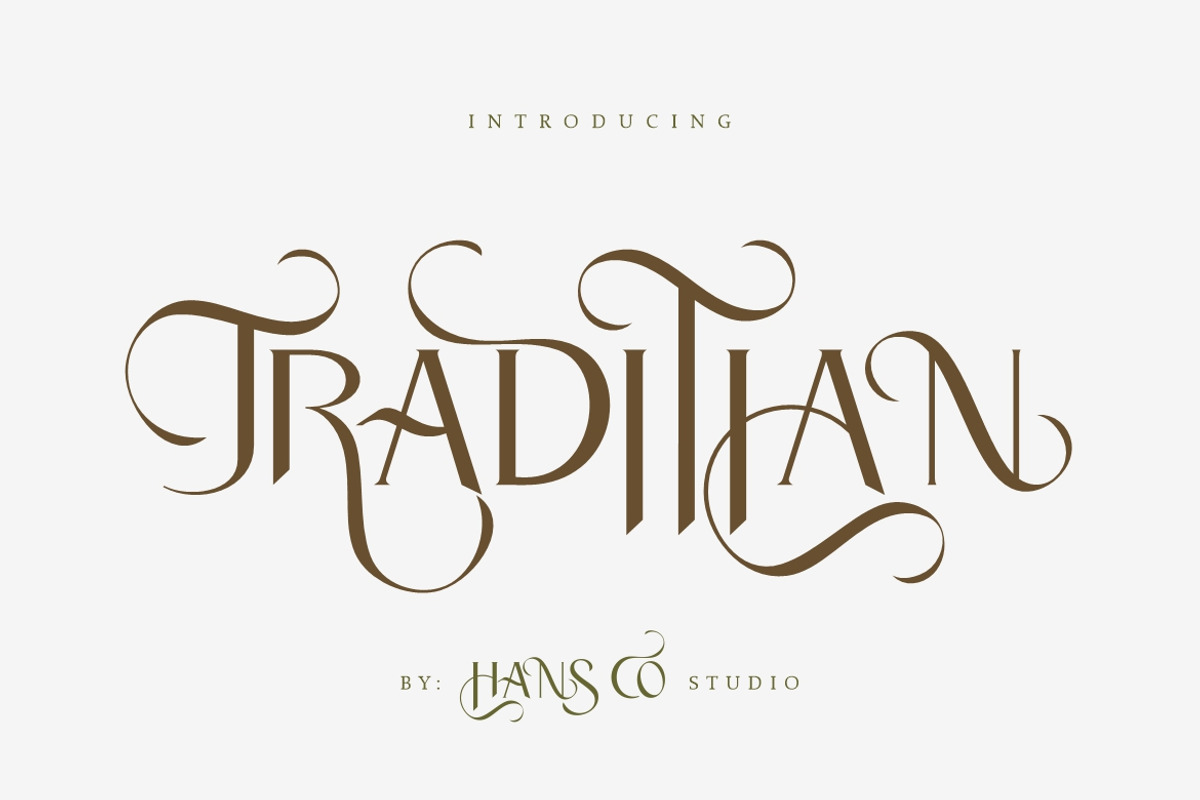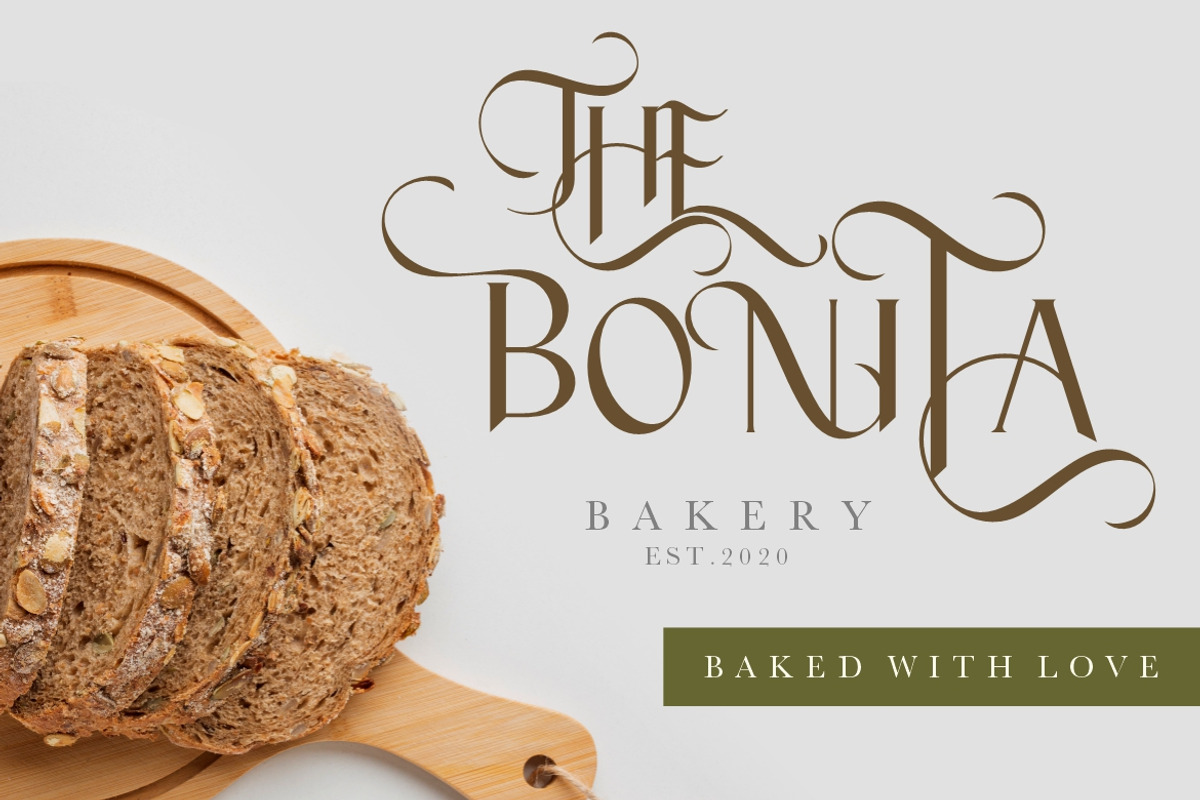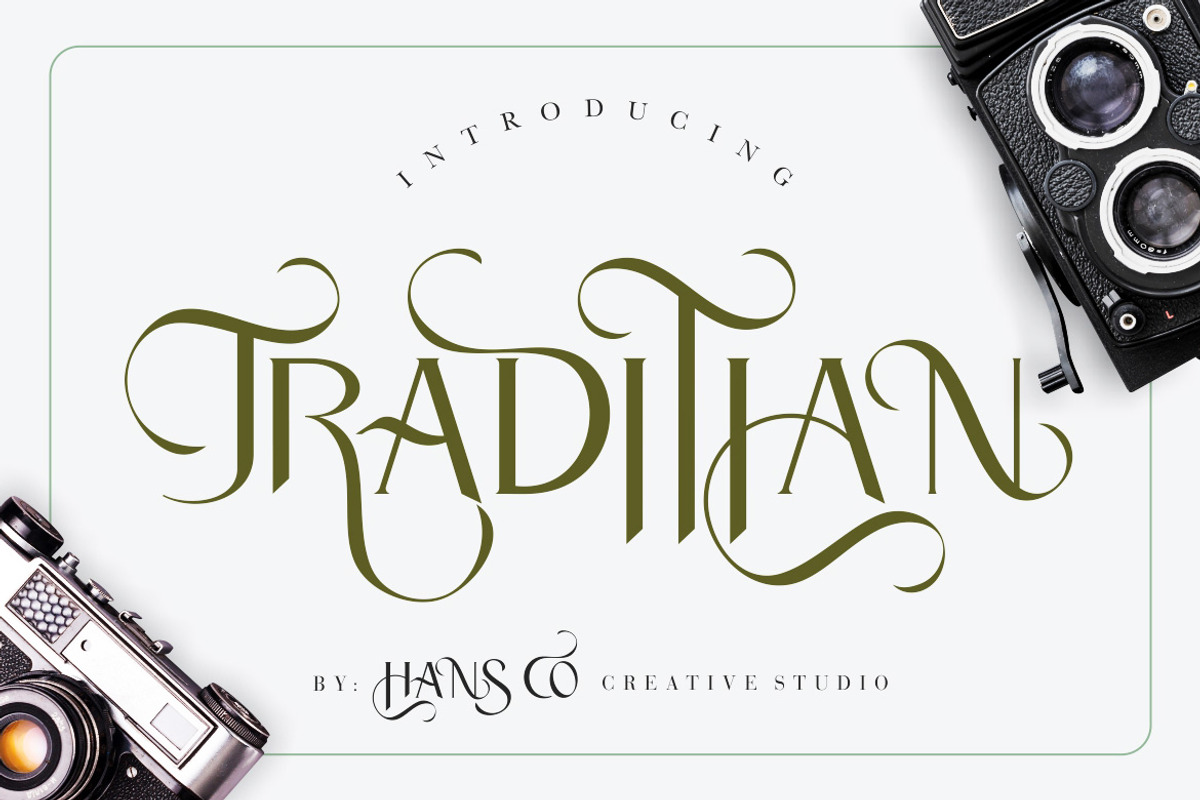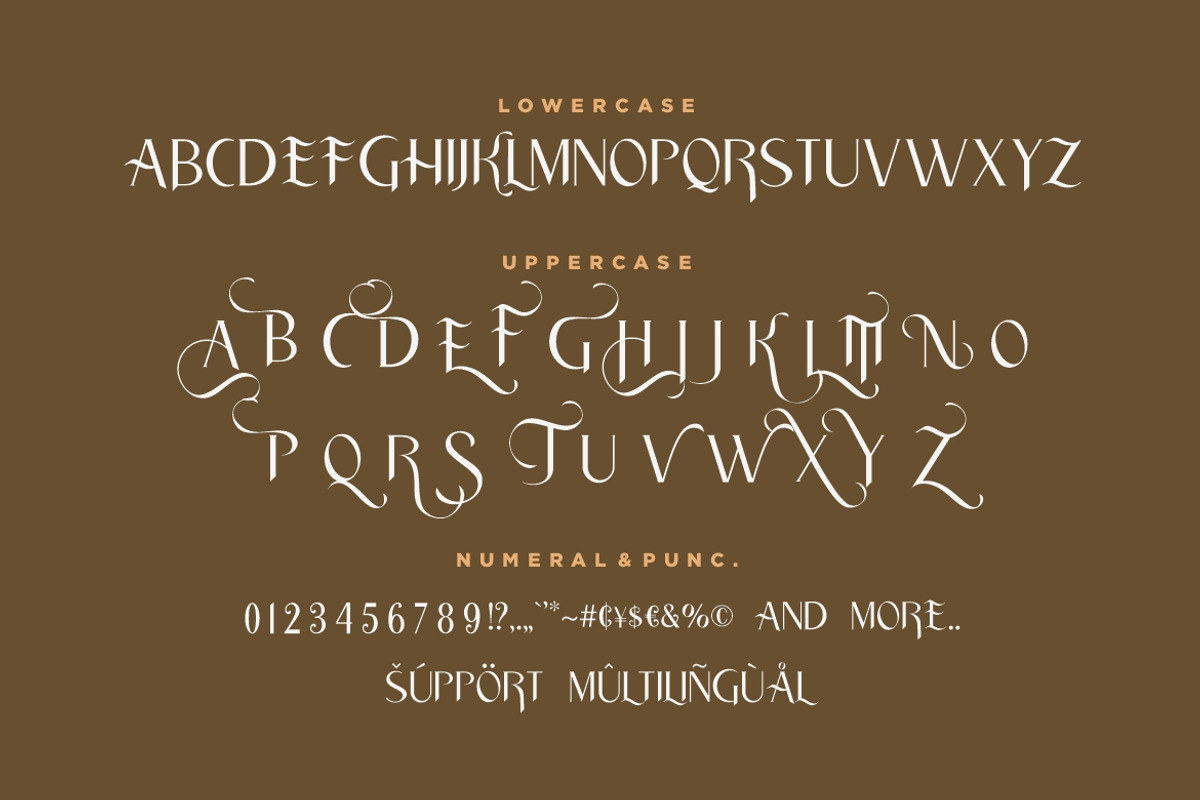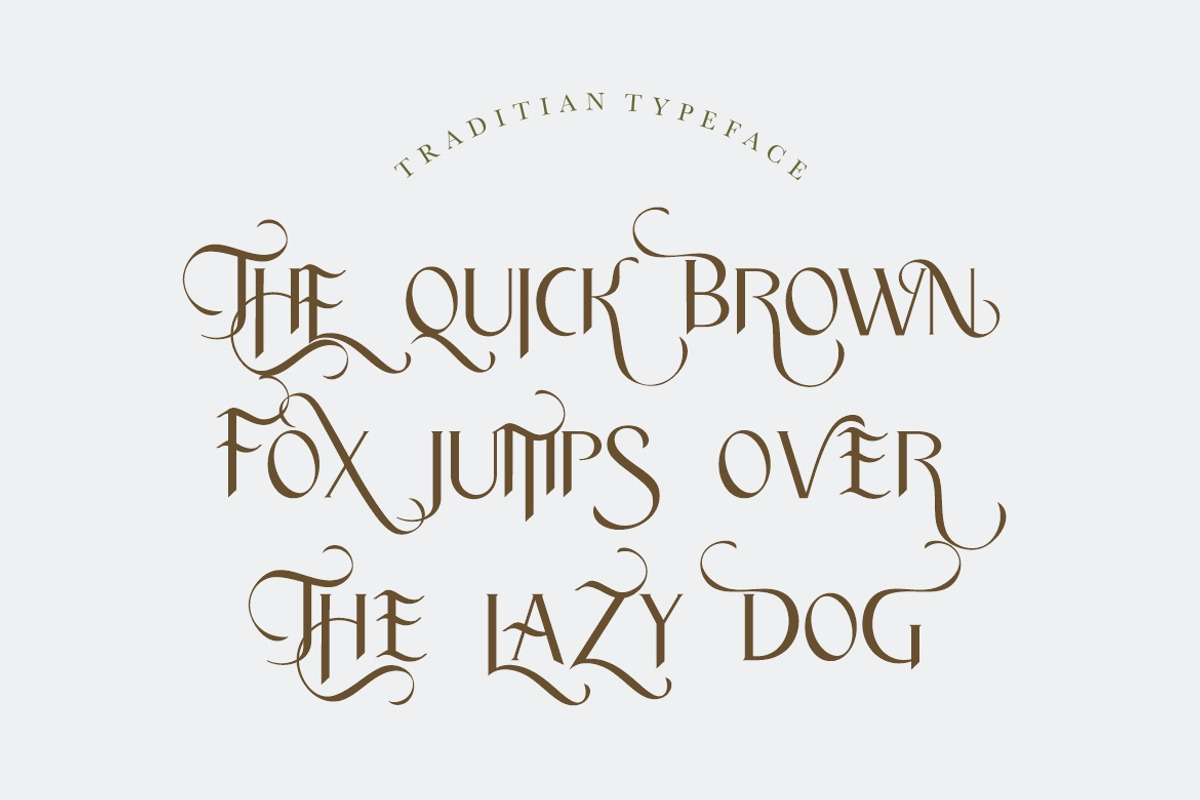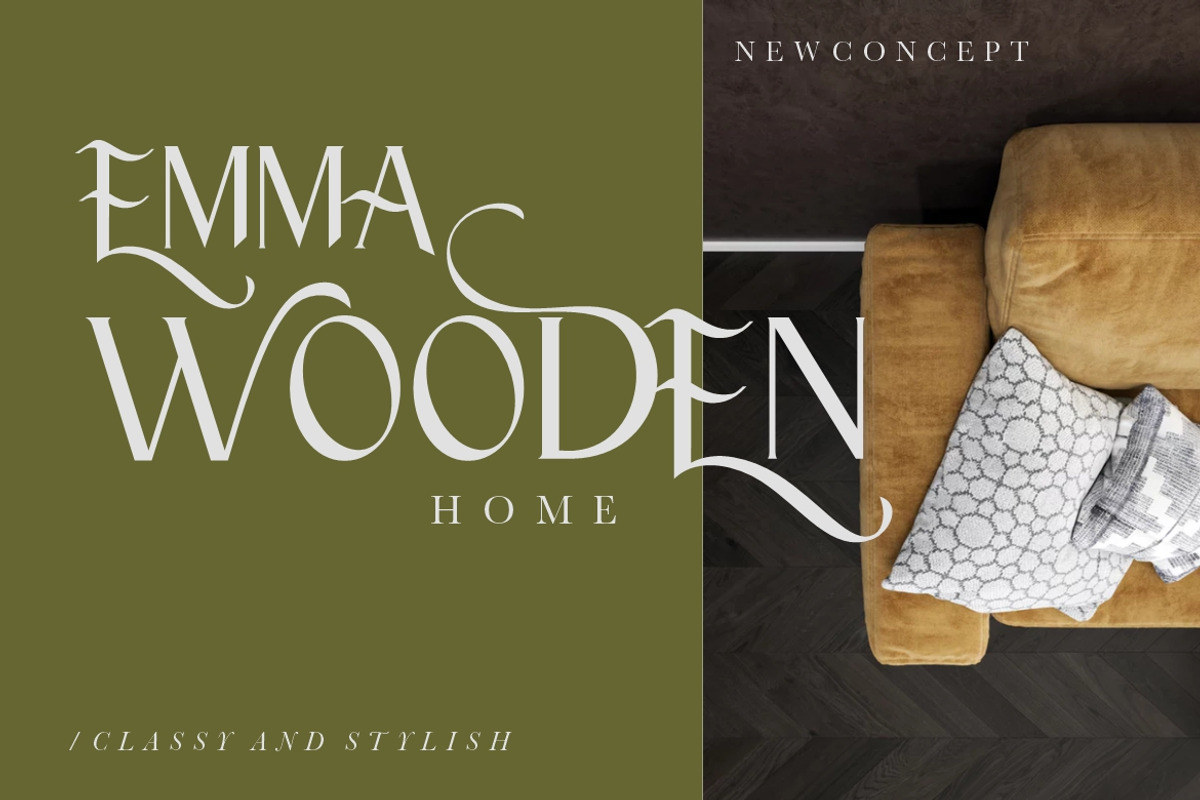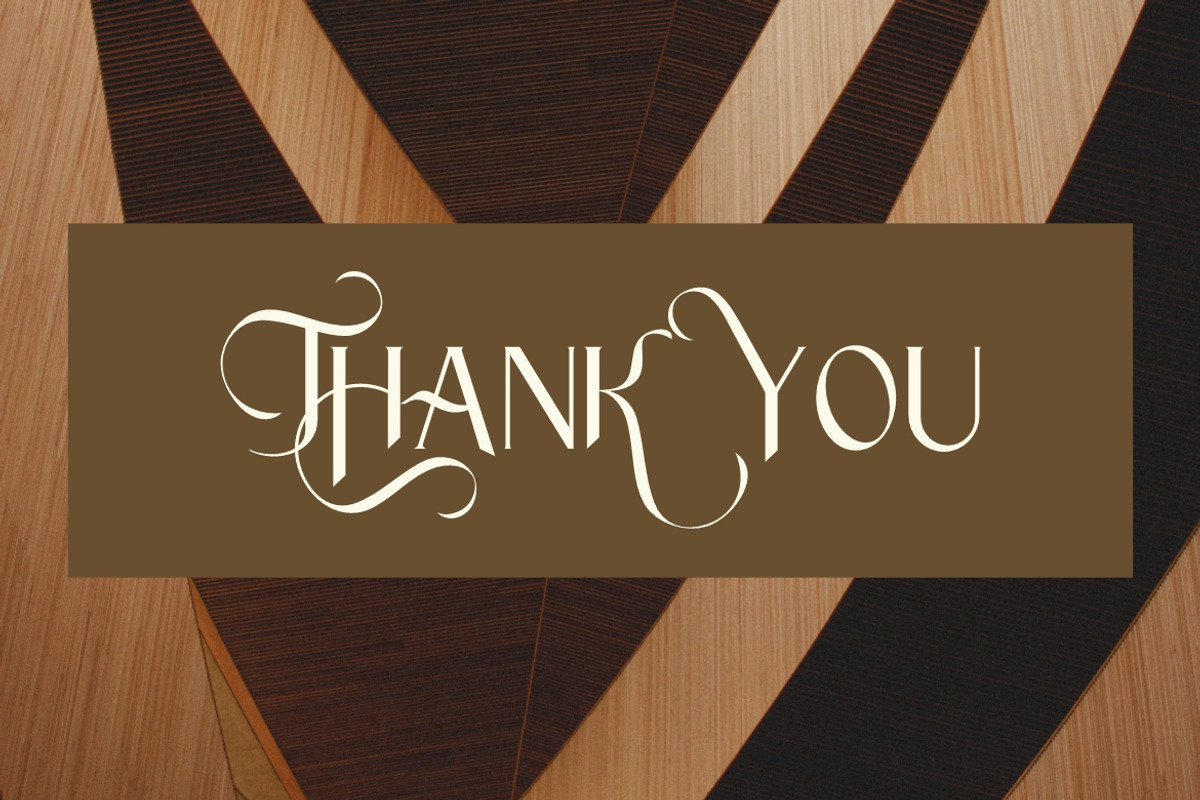
Traditian Font
Traditian font is a elegant yet luxury display serif with little swirls tails. This font comes with ALL CAPS characters ( no lowercase ). Perfect for creating logo, print template like a poster, branding, wedding invitation, quote, or anything else.